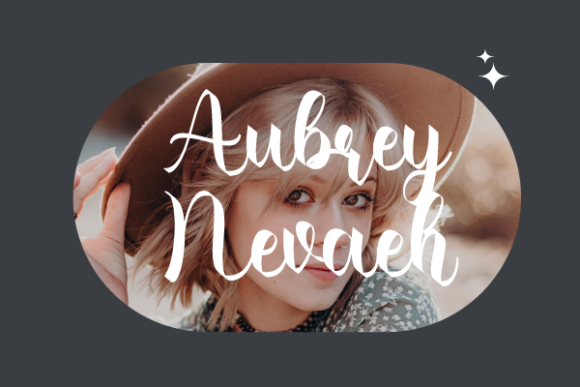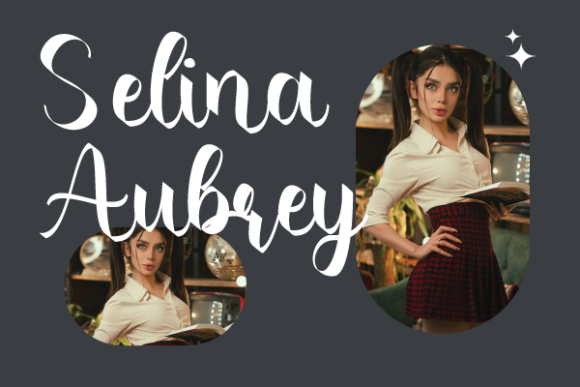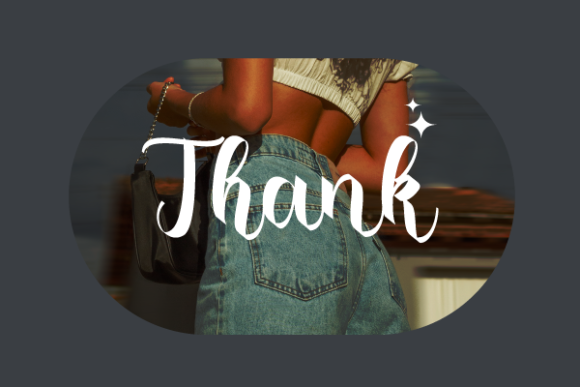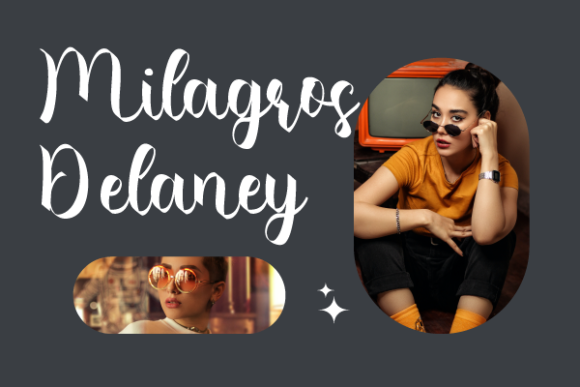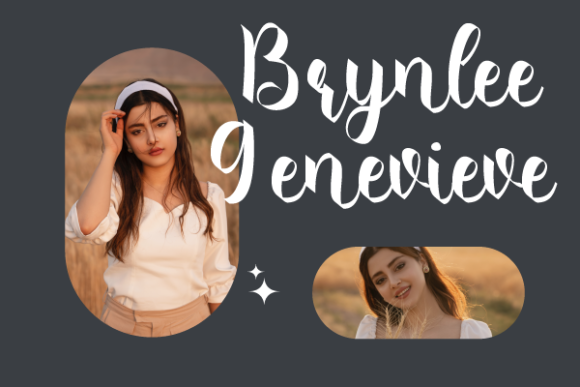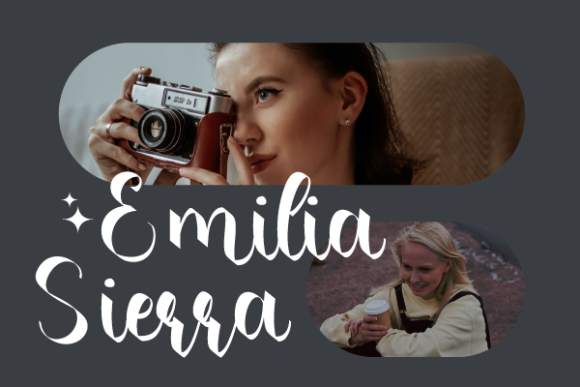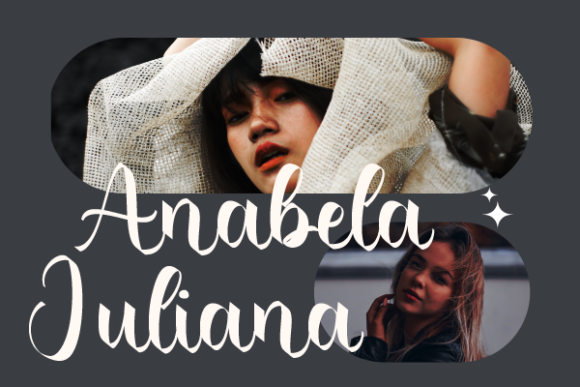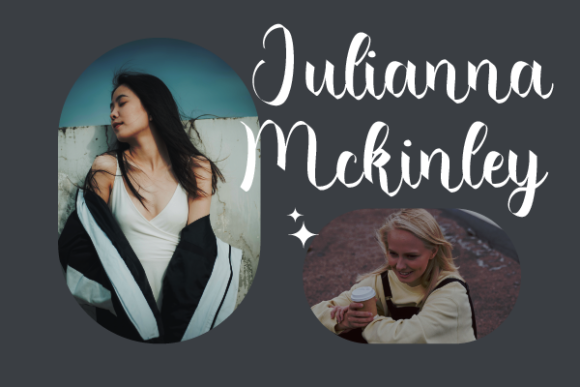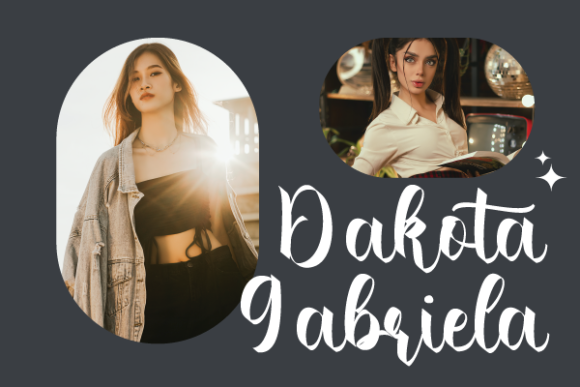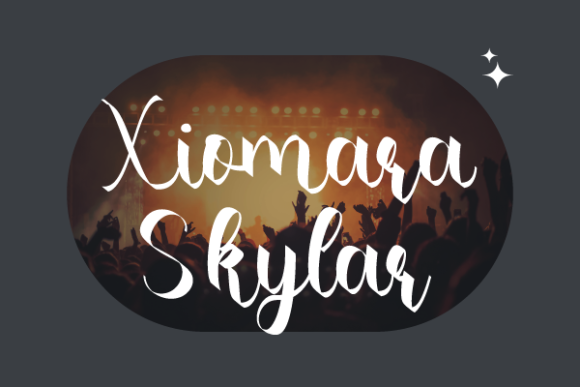
Aydin Demetrius Font
About Aydin Demetrius Font
Aydin Demetrius is a magical script font carefully created with a touch of elegance. Whether you’re looking for fonts for Instagram or calligraphy scripts for DIY projects, this font will turn any creative idea into a true piece of art!